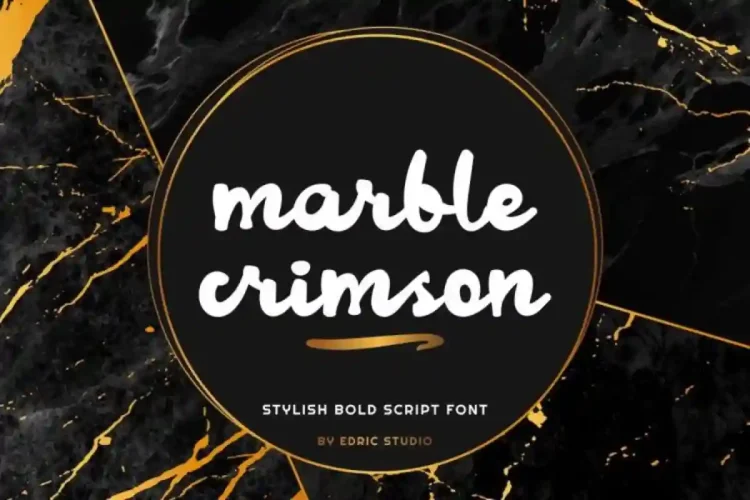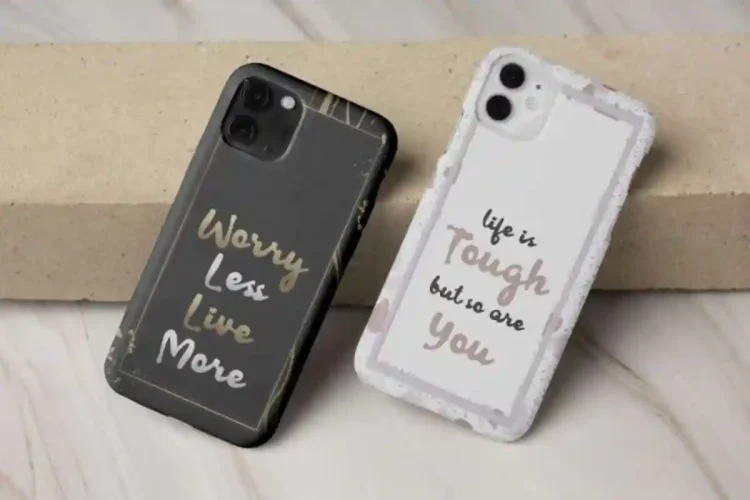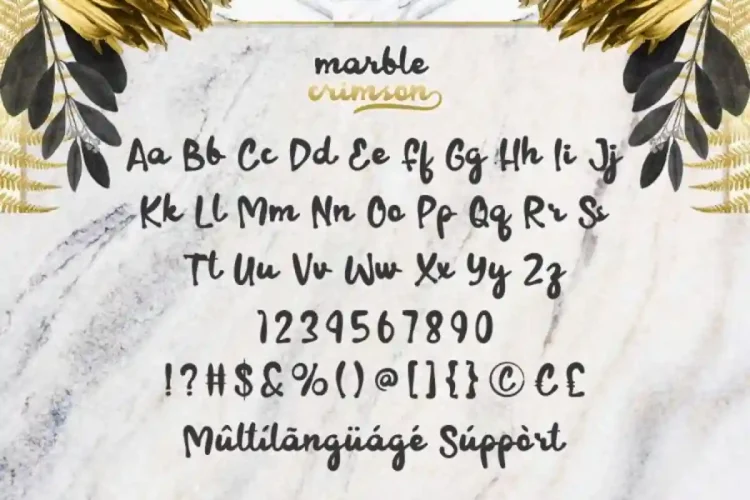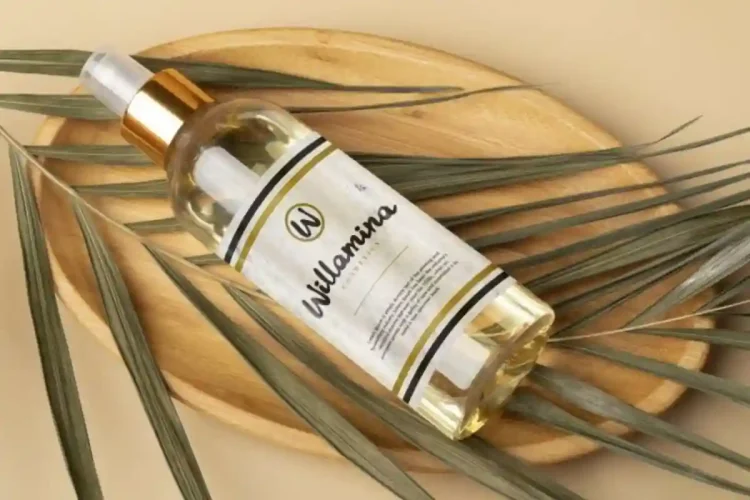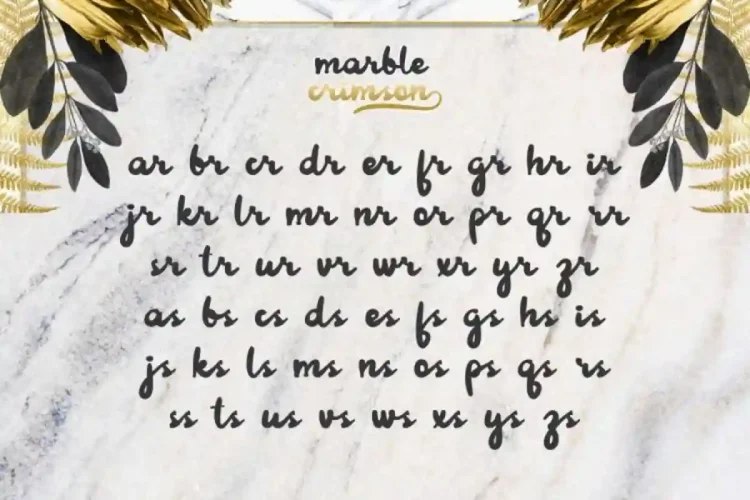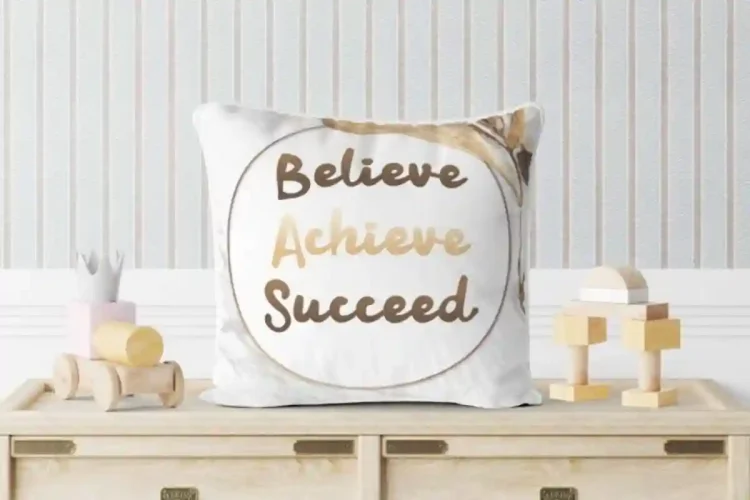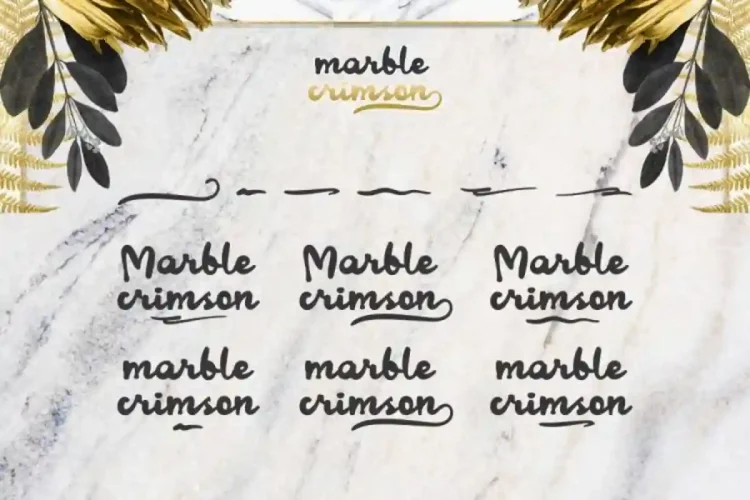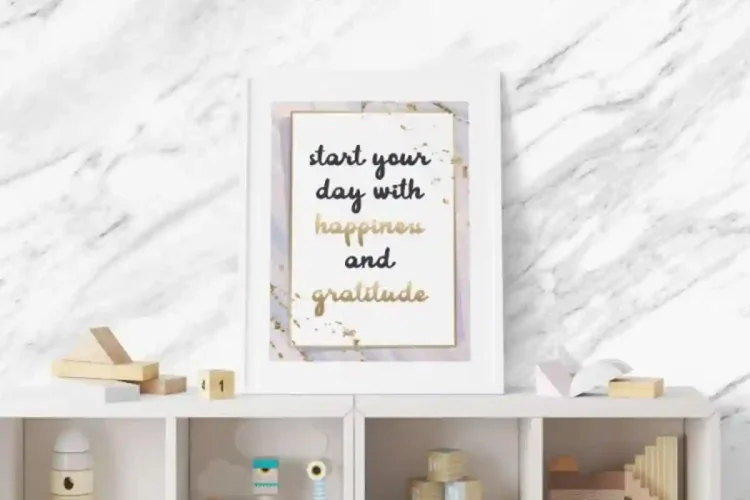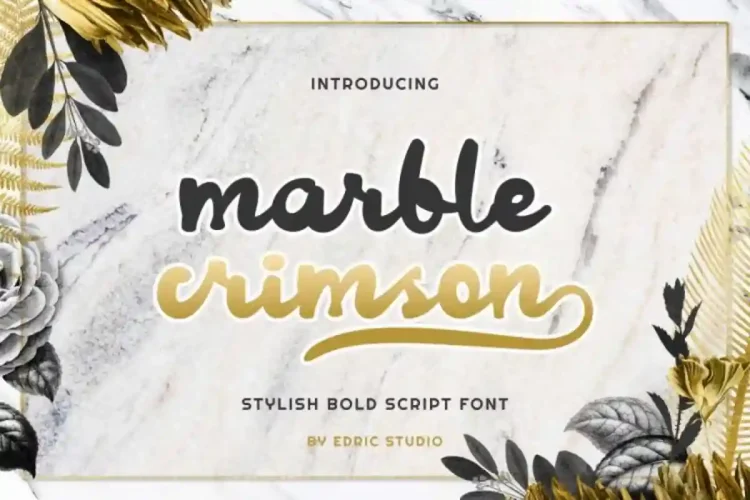
Marble Crimson Script Font is a stylish script font with bold style, created by EdricStudio. Designed to capture the natural beauty of handwriting with a touch of sophistication, this font is perfect for industries that demand elegance and personality.
Marble Crimson Script Font comes with a full set of Uppercase and Lowercase Basic Characters, Number, a large range of Punctuation and Symbol, Ligature, Swoosh. It has a stunning characters set, perfectly managed with well spaced and kerning.